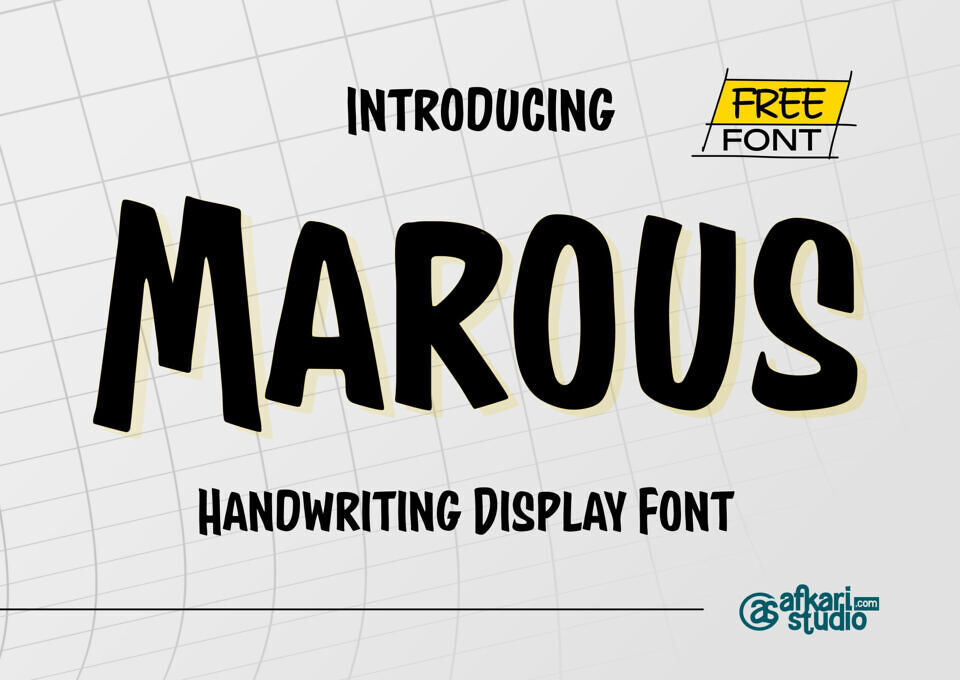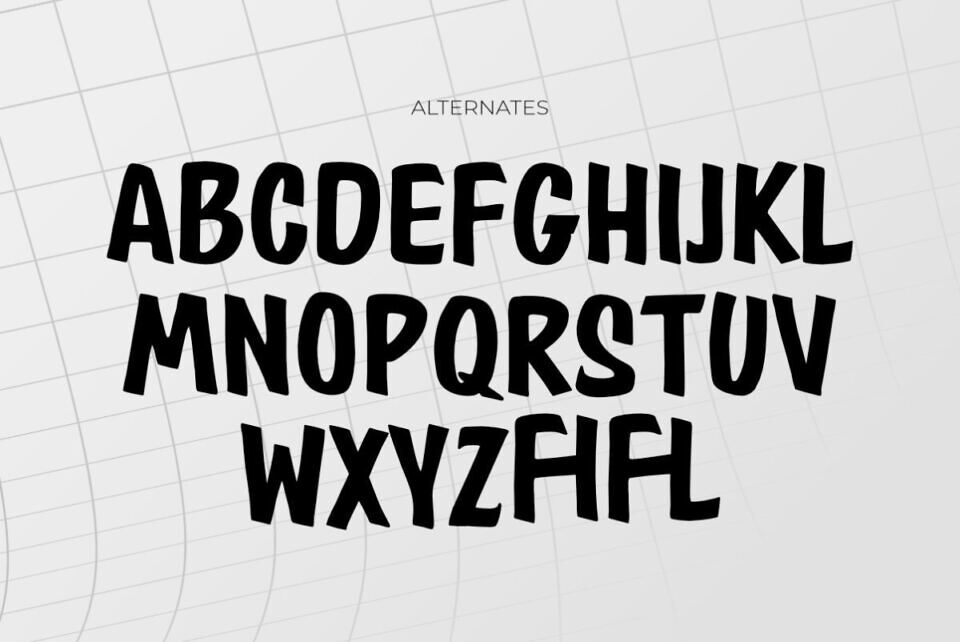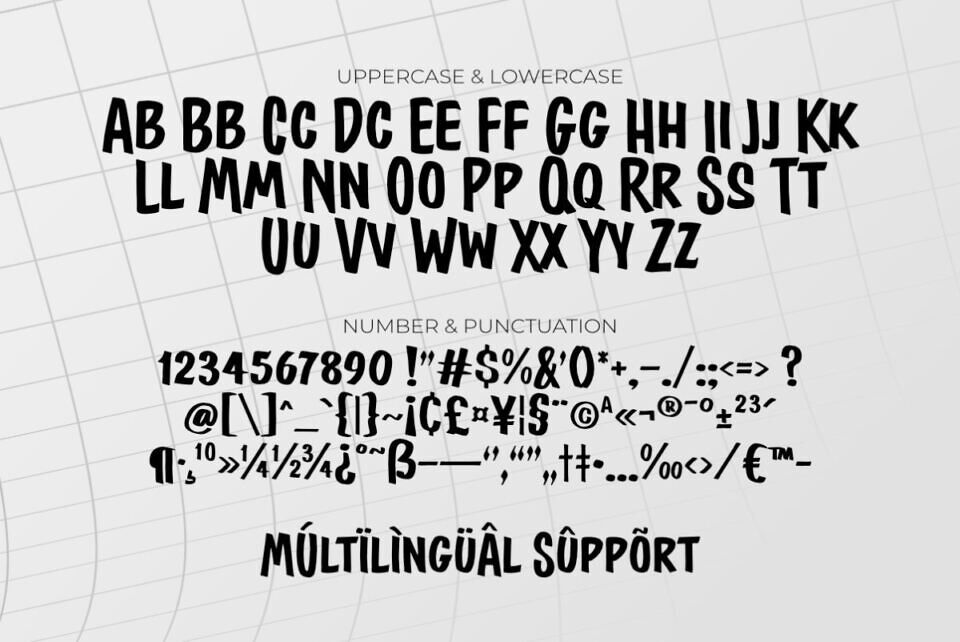
Marous is a bold and expressive handwritten display font designed to bring a natural, personal touch to your creative projects. Inspired by casual handwriting with a confident stroke, Marous feels warm, playful, and authentic—perfect for designs that need character and human emotion.
This font works beautifully for quotes, posters, branding, social media graphics, packaging, merchandise, and creative headlines. Its imperfect handwritten style adds charm while remaining clear and eye-catching, making it ideal for both digital and print use.